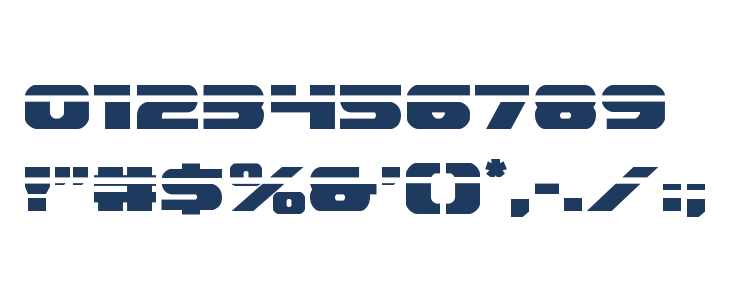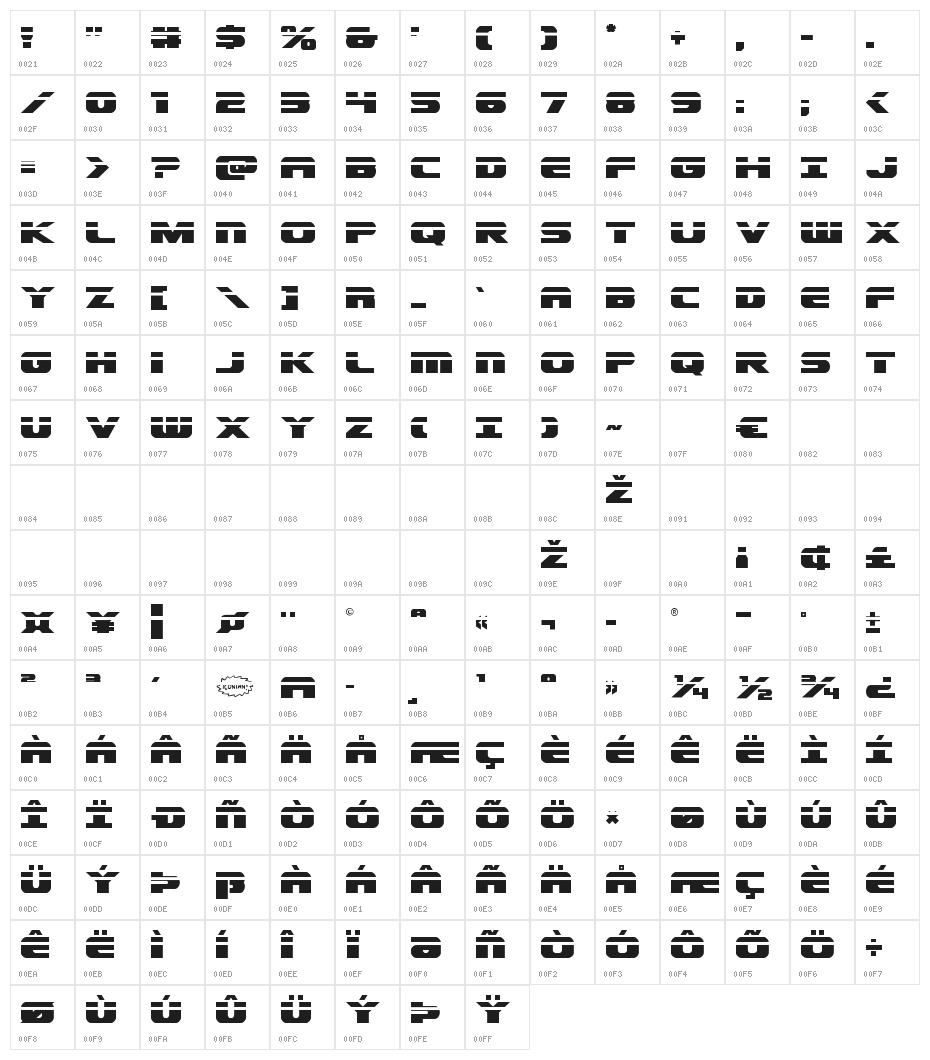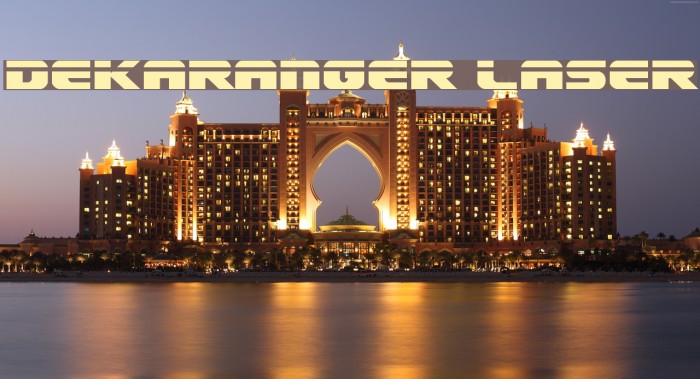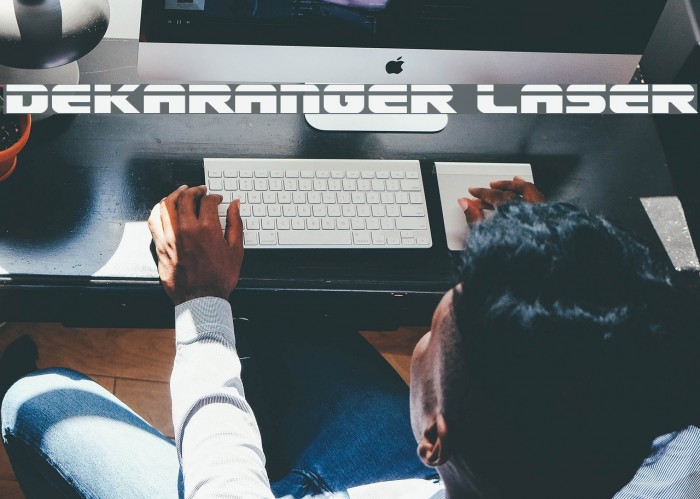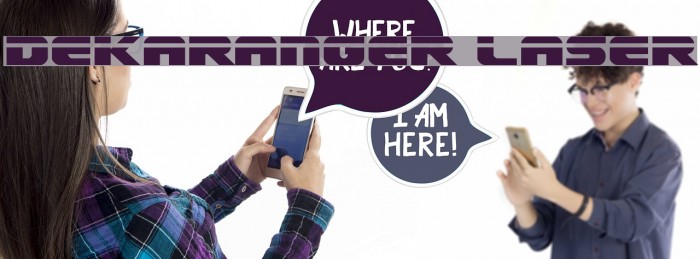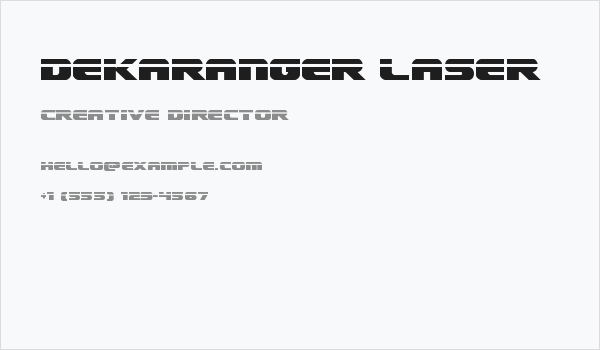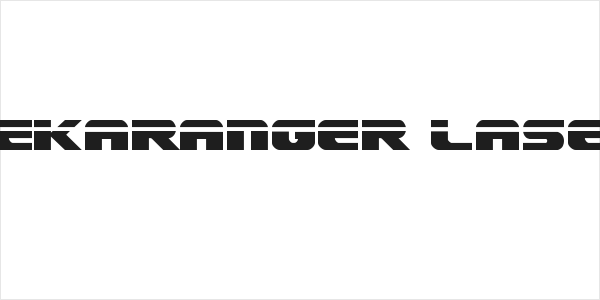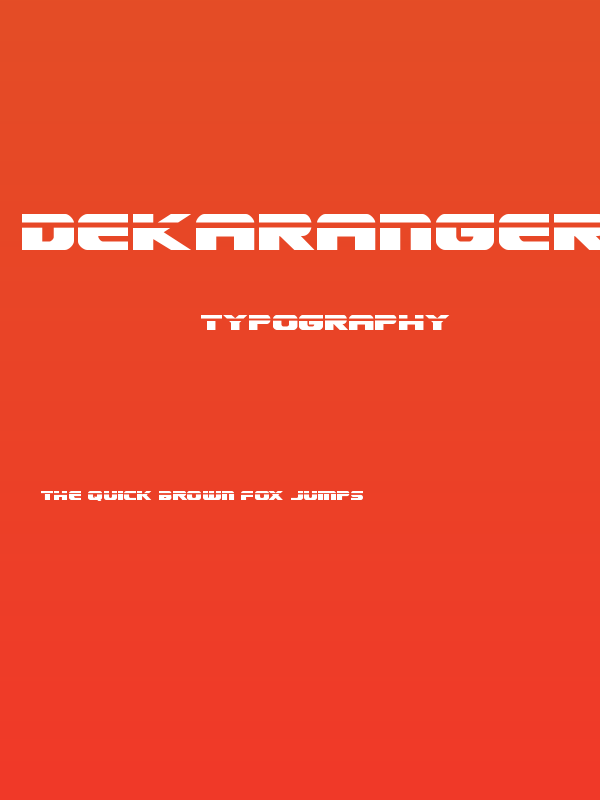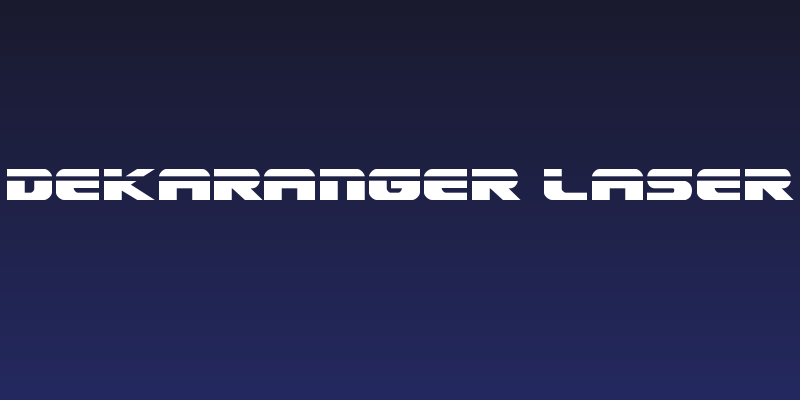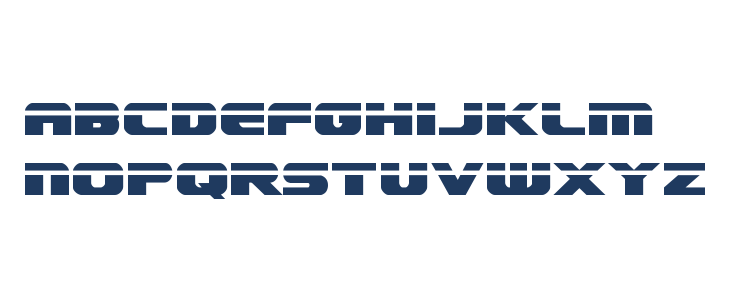
Dekaranger Laser Font
Dekaranger Laser Description
This font features a bold, futuristic design with a strong geometric influence. The characters are constructed with a combination of straight lines and sharp angles, creating a sense of movement and energy. The uppercase letters are particularly striking, with a blocky, robust appearance that commands attention. The lowercase letters maintain the same boldness, ensuring consistency across the typeface. Numbers and special characters are designed to match the overall aesthetic, making this font versatile for various applications. The spacing between characters is tight, enhancing the compact and cohesive look.
| Proposed Projects | Ideal for sci-fi themed projects, video game titles, tech branding, and futuristic posters. |